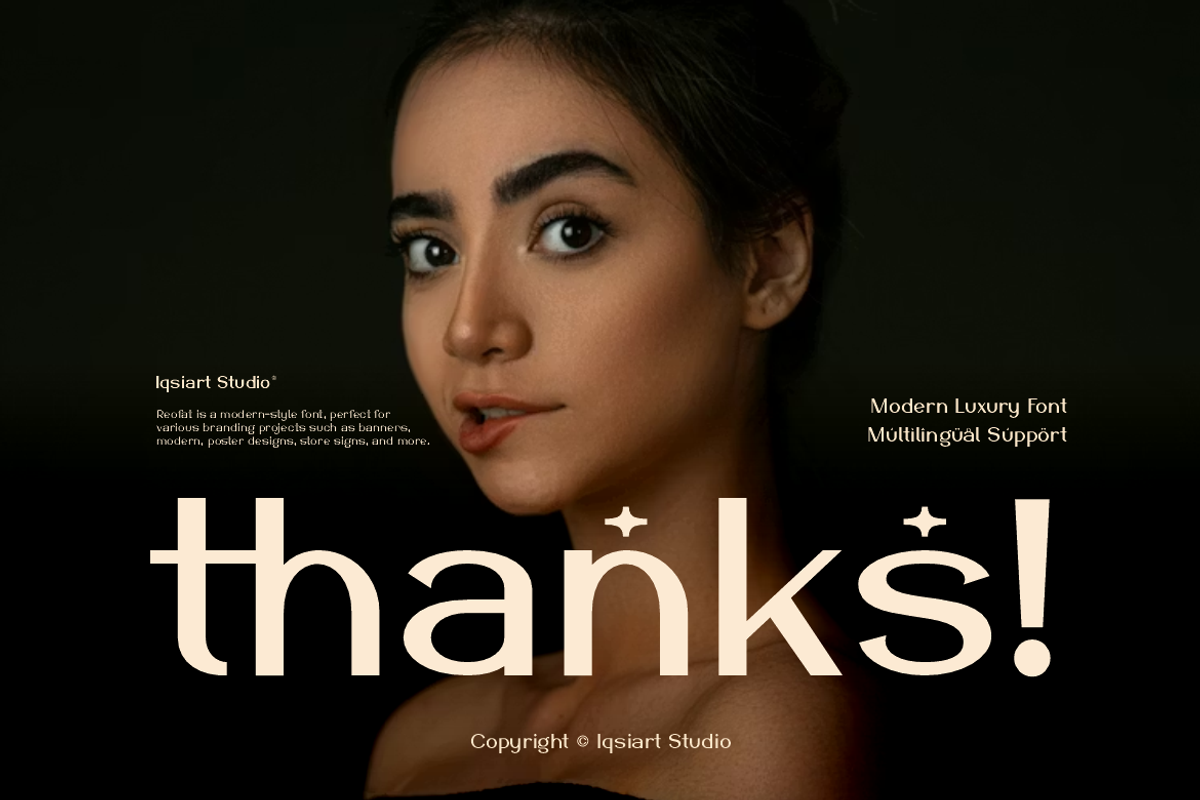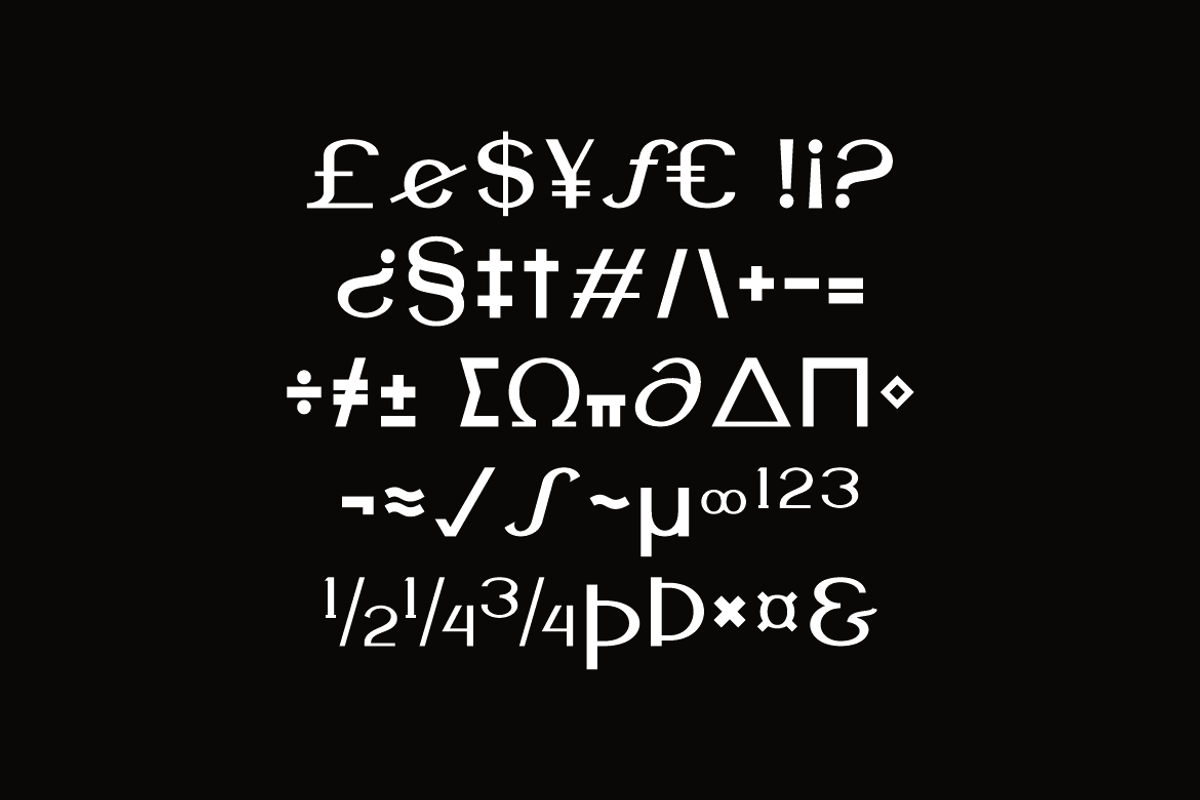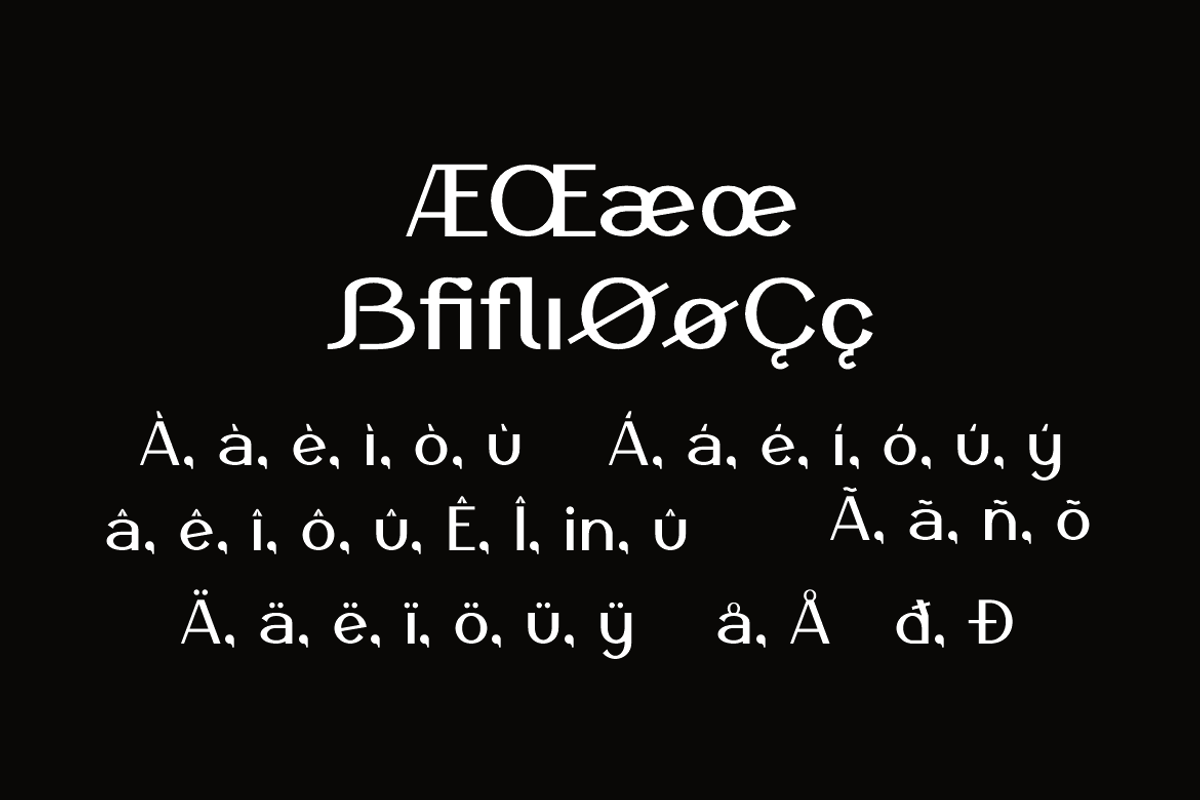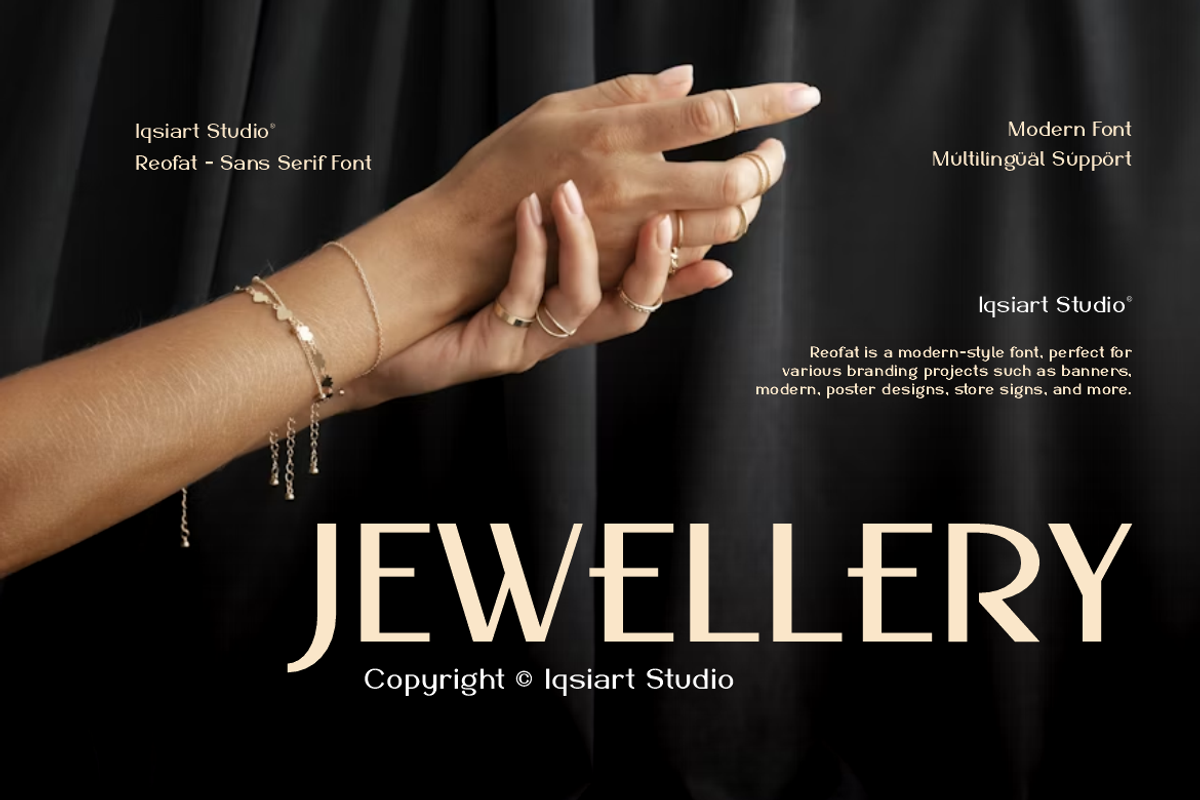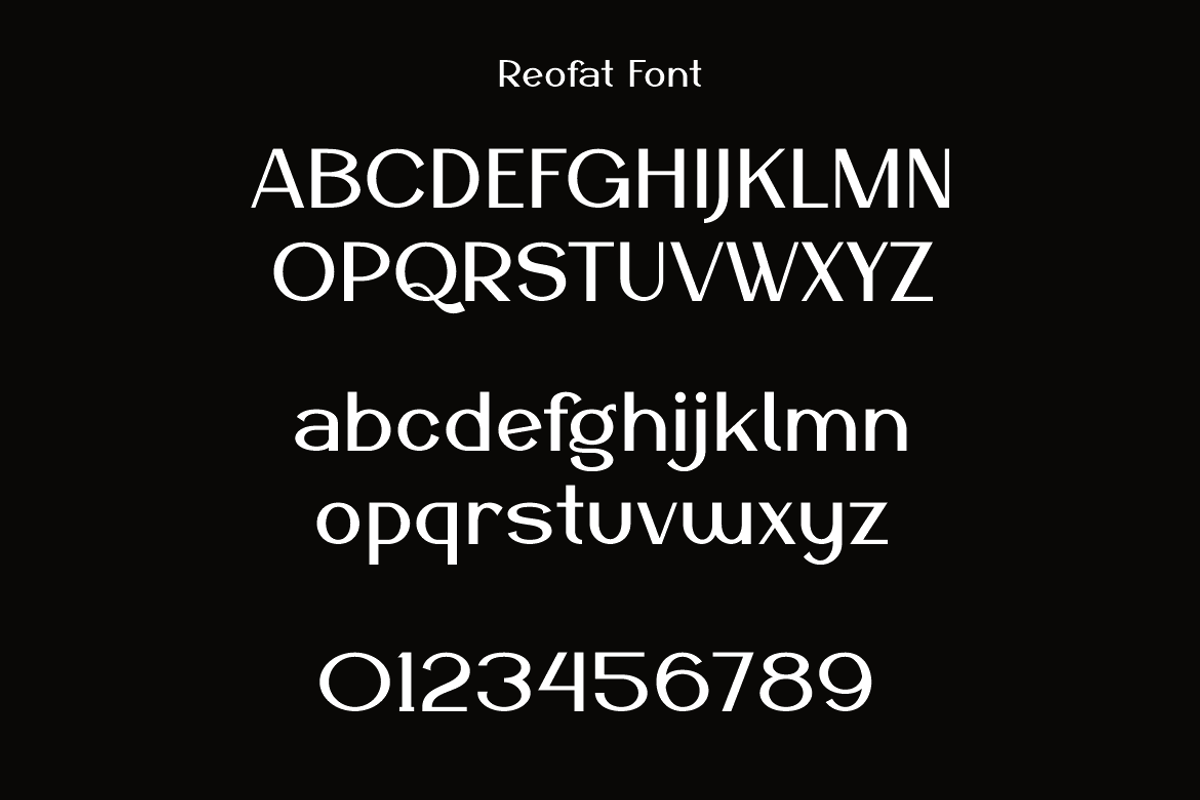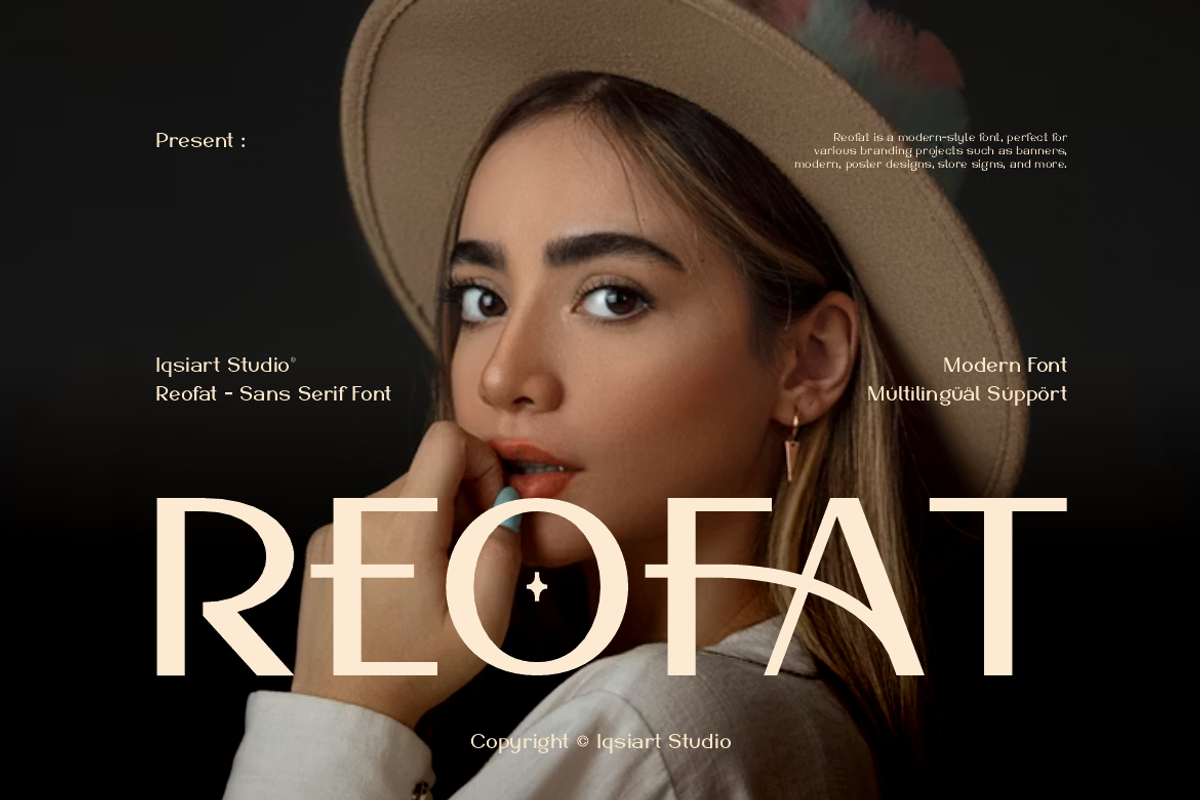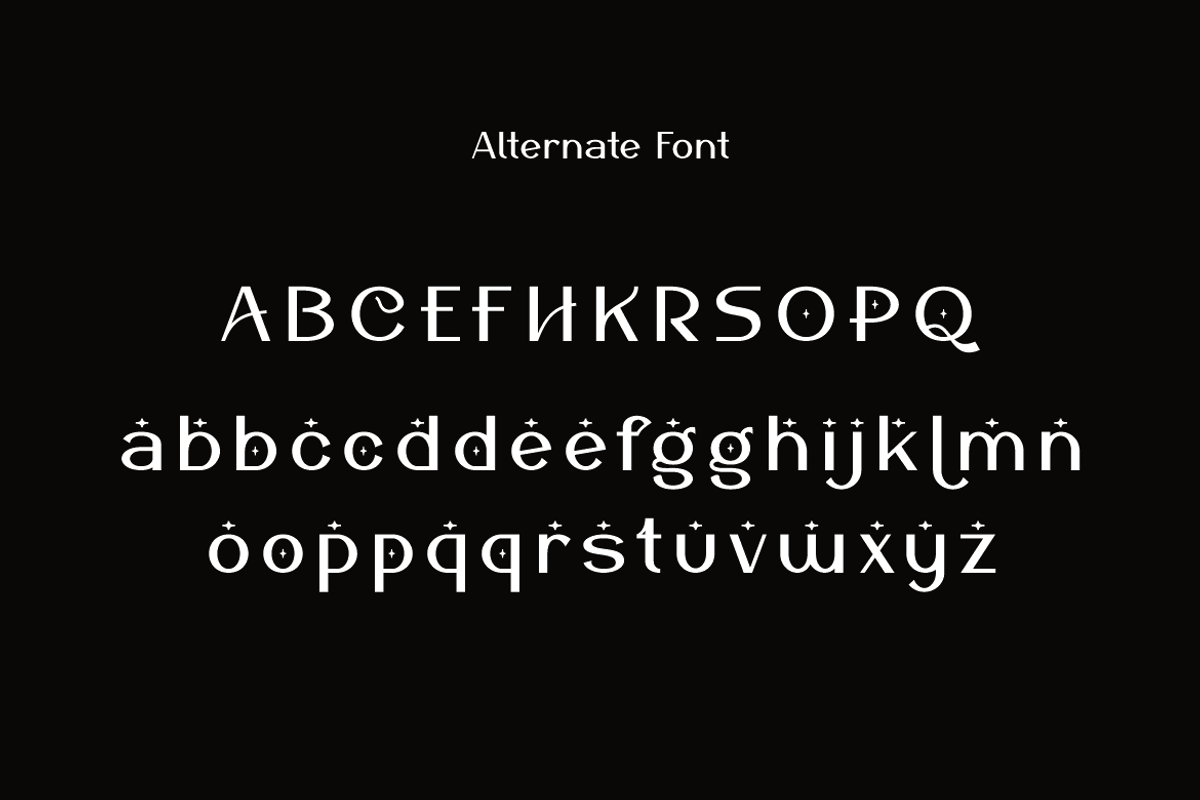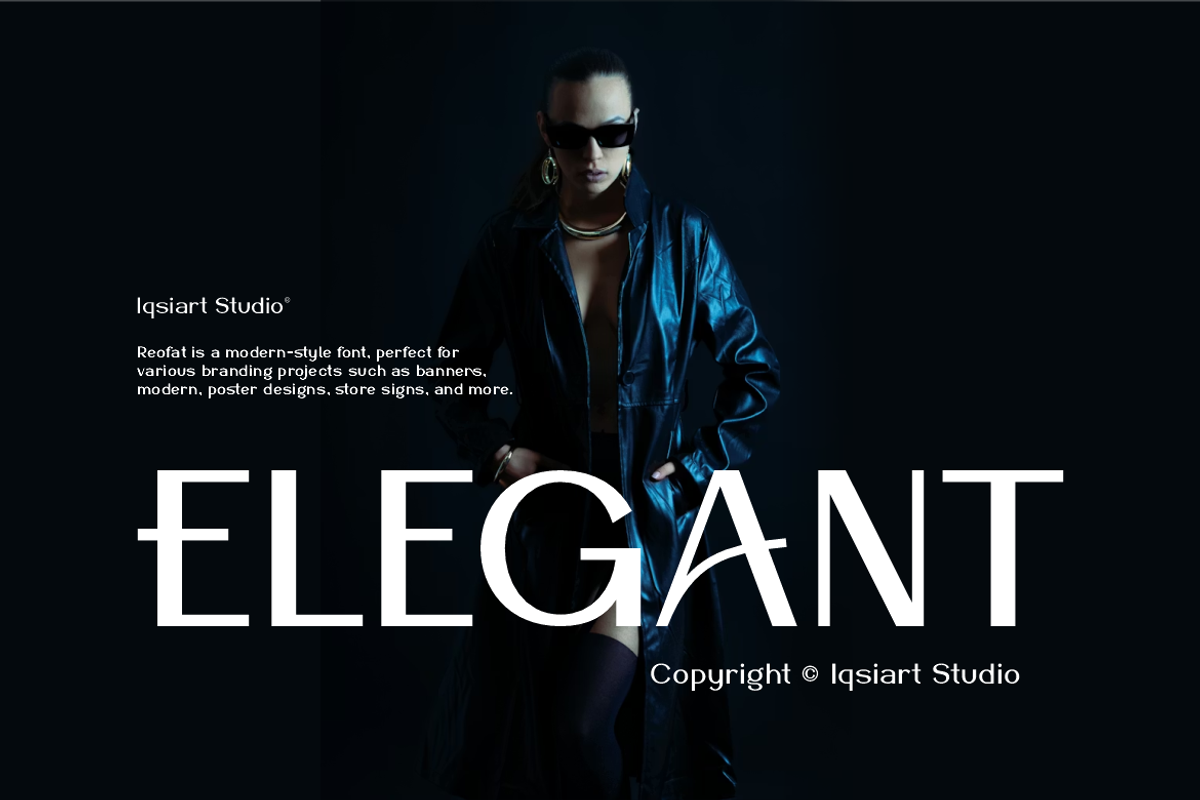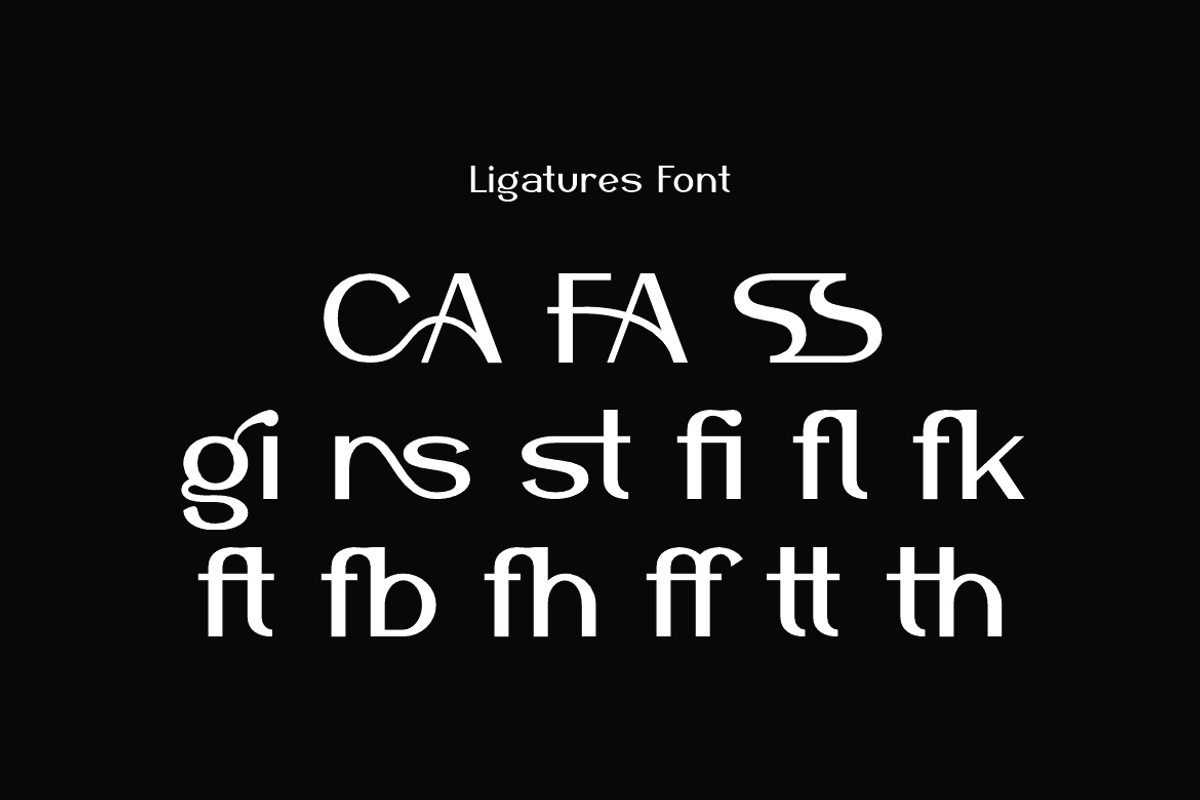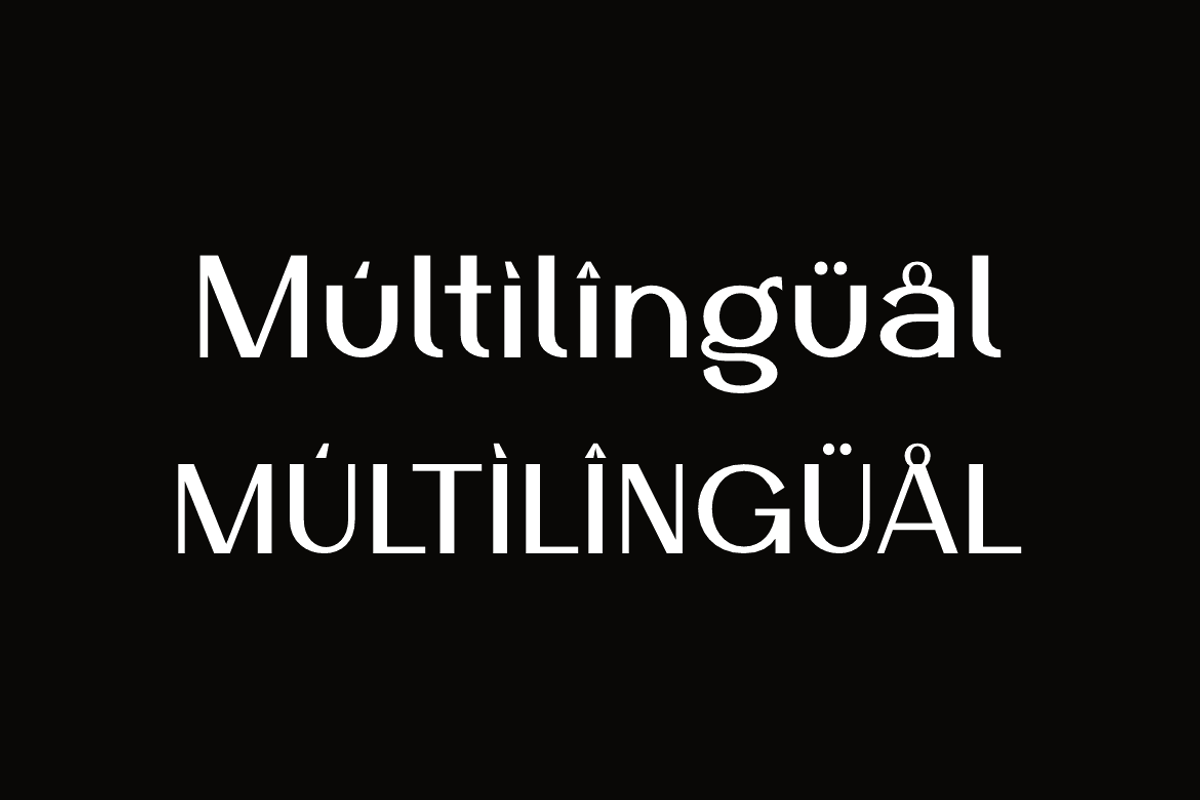
Reofat - Brand Logo Font
Reofat Font is a modern and authentic display typeface
that suits a variety of design needs. We offer a wide range of themes